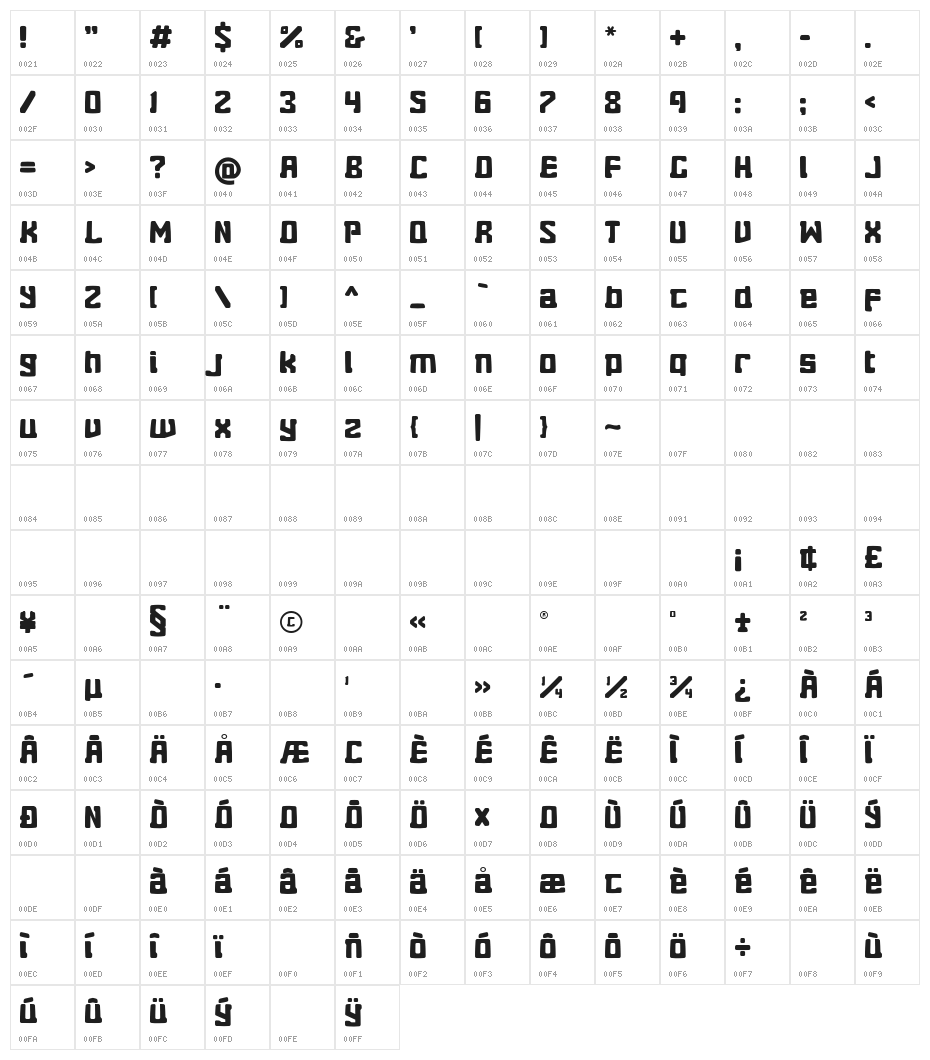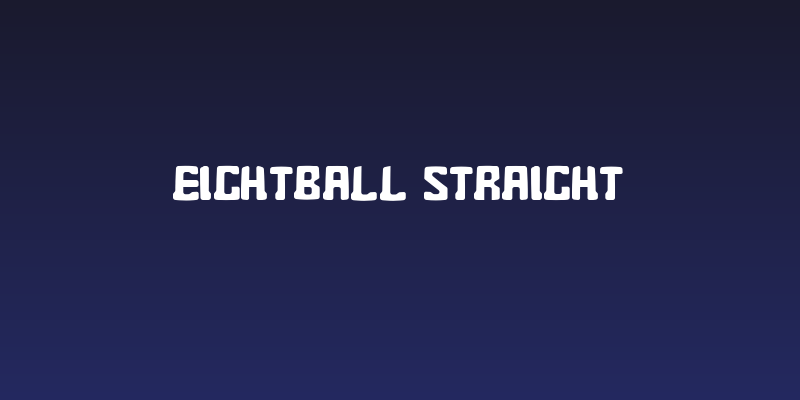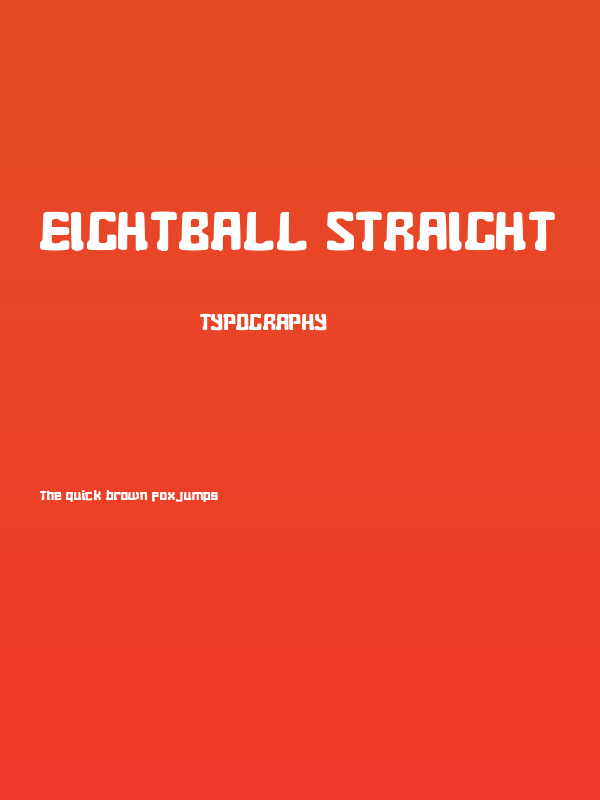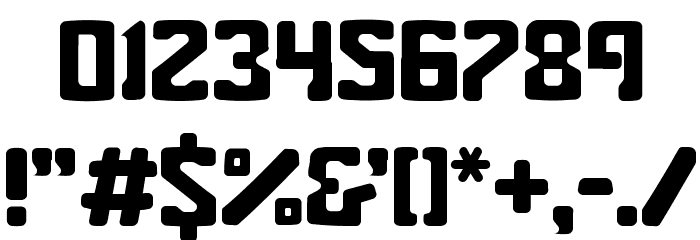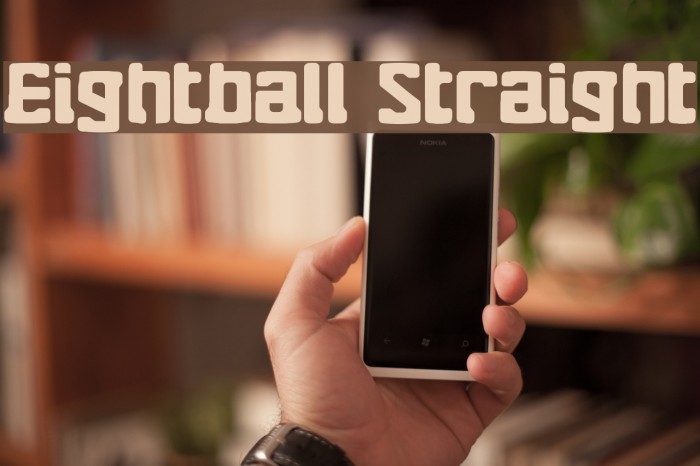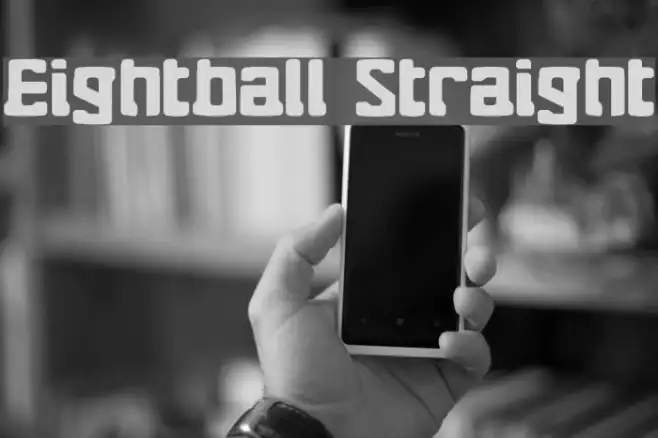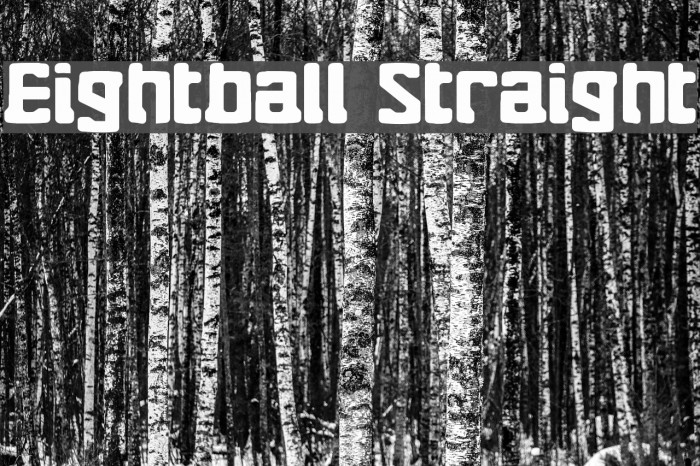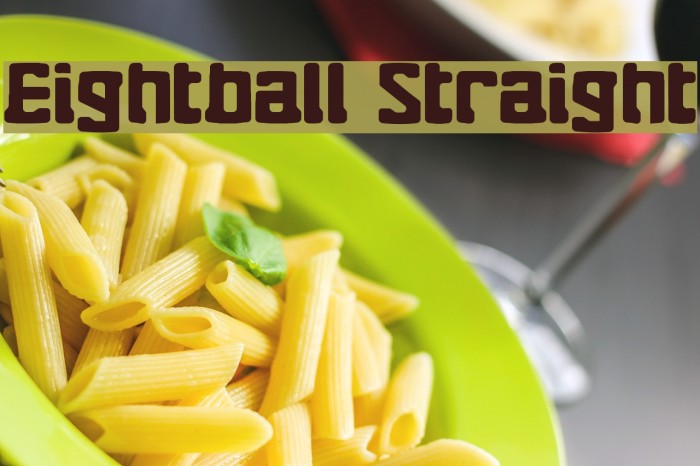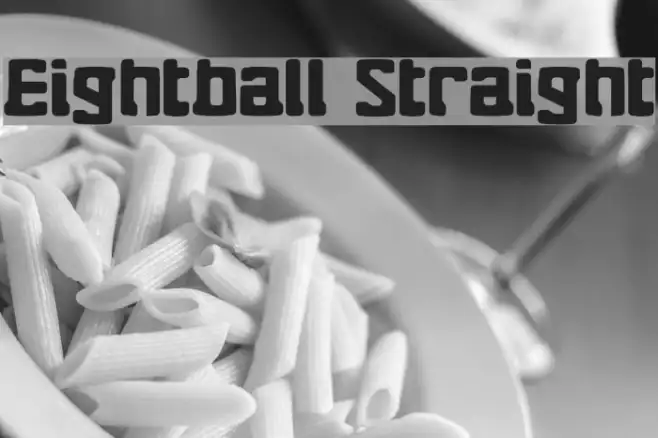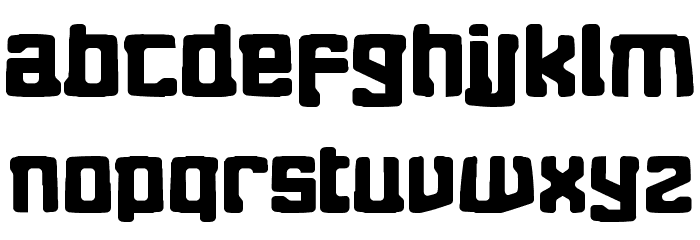
Eightball Straight Font
Eightball Straight Description
This font features a bold, blocky style with rounded edges, giving it a playful yet sturdy appearance. The characters are uniformly thick, providing a consistent visual weight across both uppercase and lowercase letters. The numbers and special characters maintain this robust design, ensuring readability and impact. The overall look is reminiscent of retro or vintage styles, making it suitable for projects that require a touch of nostalgia or boldness. Its unique form is eye-catching, making it ideal for headlines or display purposes where attention is key.